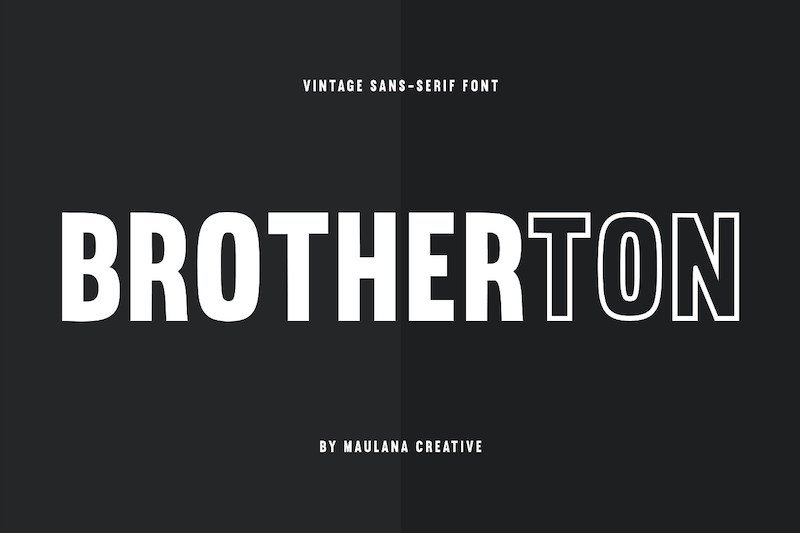
Brotherton Vintage Sans Serif Font
Brotherton Vintage Sans Serif Font is a bold, challenging and emotional visualization typeface, ideal for movie posters and headlines.It has a elegant, classy look and modern. It’s a great font for fashion, apparel projects, signature, album cover, logo, branding, magazine, social media, & advertisements, but also works great for other projects.